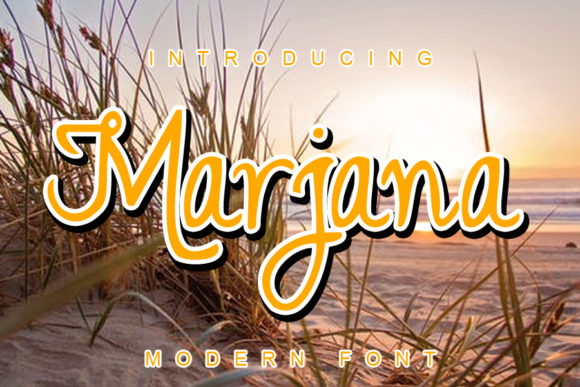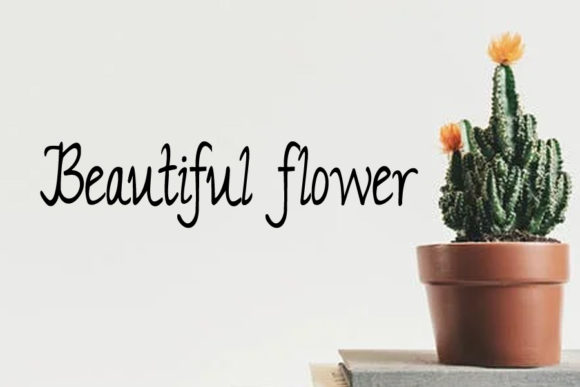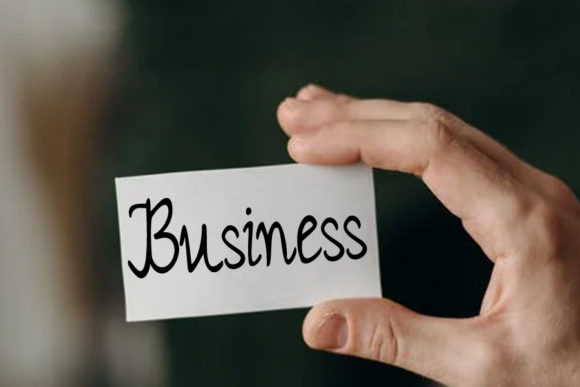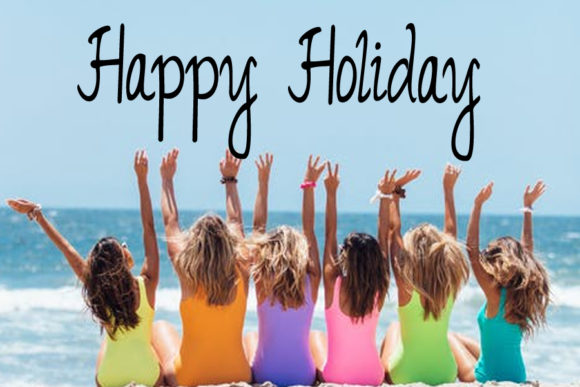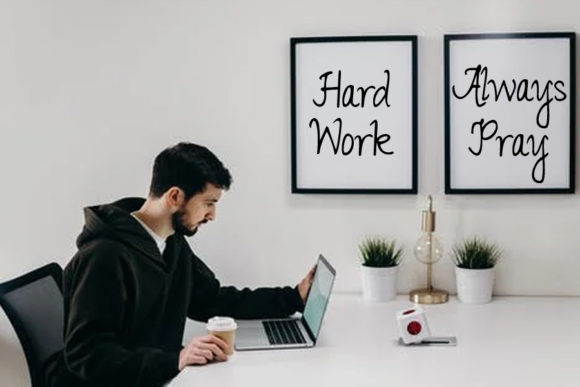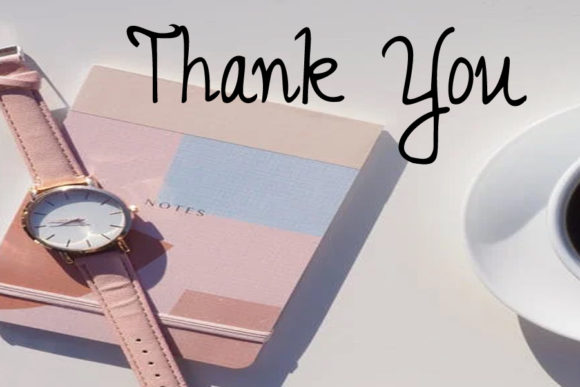
Marjana Font
About Marjana Font
Introducing “Marjana” – a simple and delicate script font that adds a touch of elegance and personalization to your designs. With its graceful and refined style, this font is perfect for a variety of design projects, including wedding invitations, thank you cards, greetings, logos, and more.
Marjana’s simplicity and delicate letterforms make it a versatile choice for creating personalized designs. Its graceful strokes and carefully crafted curves exude an air of sophistication and charm. Whether you’re designing for a special occasion or adding a personal touch to your branding materials, Marjana will enhance the beauty and elegance of your creations.
The versatility of Marjana allows it to adapt effortlessly to different design contexts. Its handwritten style adds a sense of warmth and personality, making it suitable for both formal and informal projects. Whether you’re aiming for a romantic and whimsical aesthetic or a classic and timeless look, Marjana will elevate your designs with its delicate and personalized touch.
Embrace the simplicity and delicacy of Marjana, and witness how it adds an elegant and personalized touch to your designs. Let it be the font that captures the essence of your special moments and communicates your brand’s unique identity. With Marjana, your designs will exude beauty and sophistication.